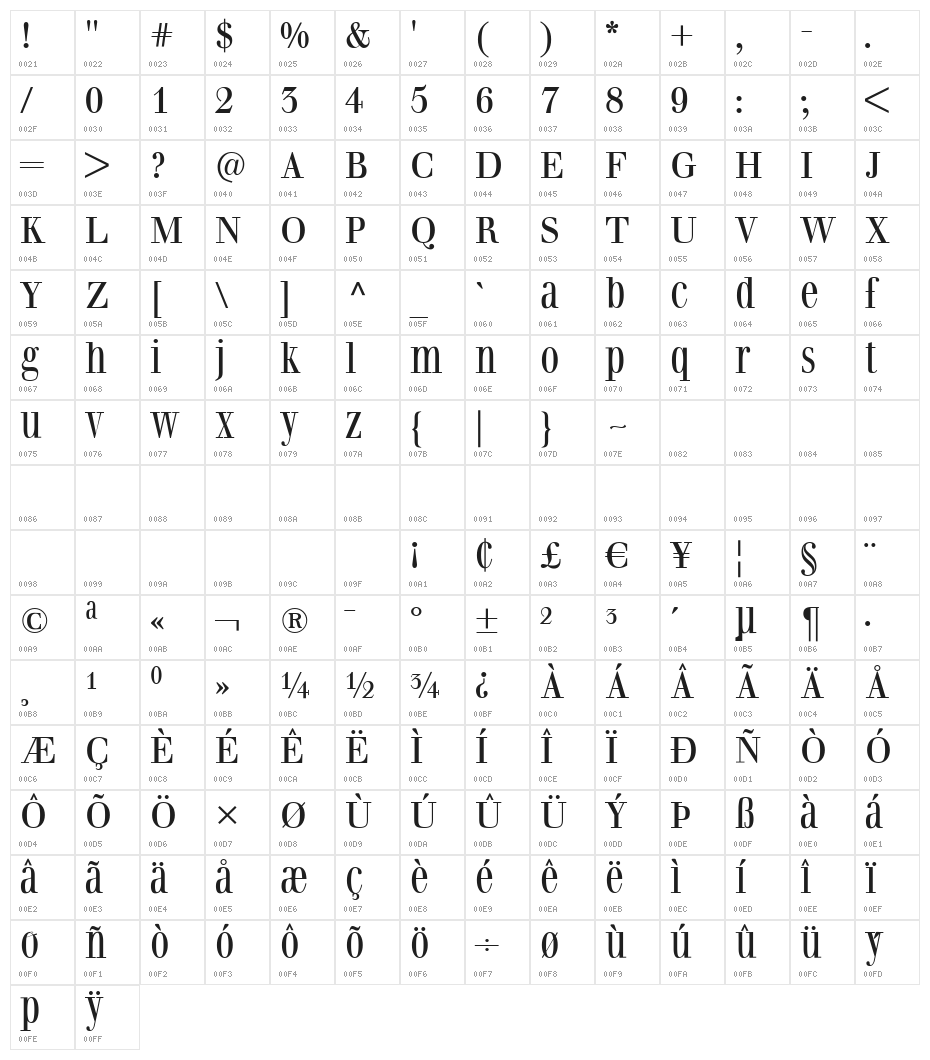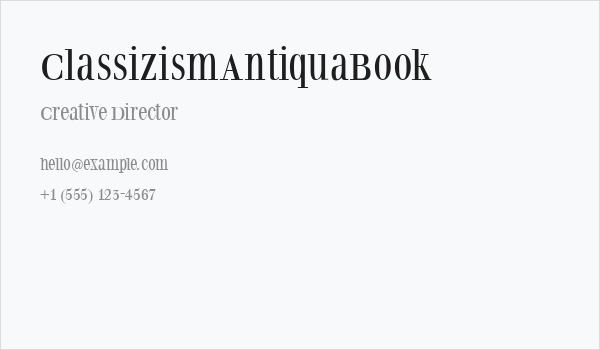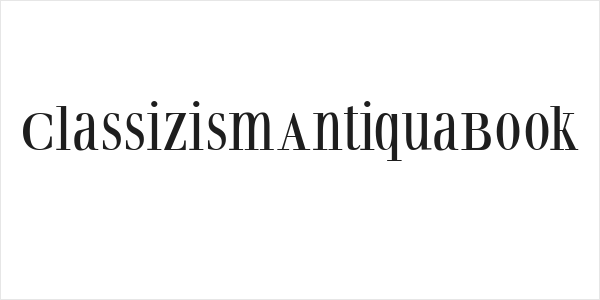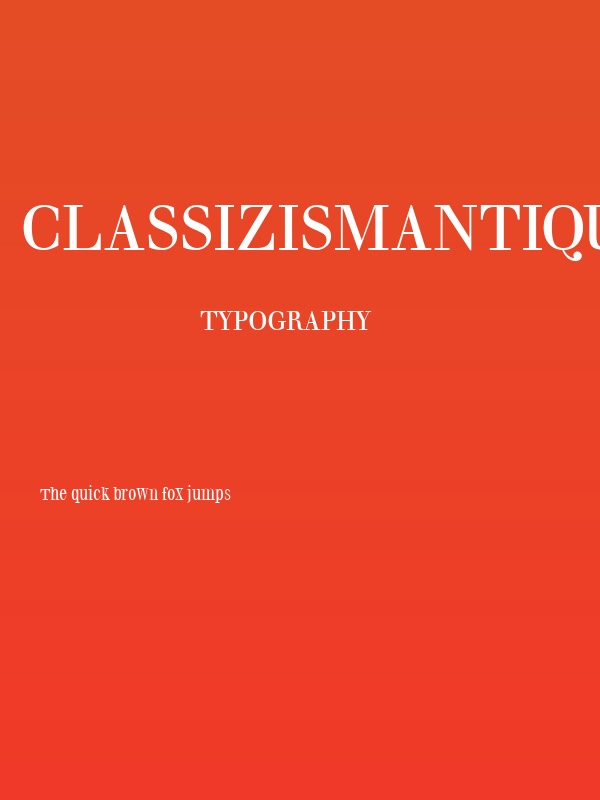
ClassizismAntiquaBook Font
ClassizismAntiquaBook Description
This font features a classic serif design with elegant and refined lines, embodying a timeless aesthetic. The uppercase letters are bold and commanding, while the lowercase letters maintain a balanced and harmonious appearance. The numerals are clear and distinct, ensuring readability. Special characters are thoughtfully designed to complement the overall style. The font's stroke contrast is medium, providing a sophisticated look without sacrificing legibility. Its traditional yet versatile design makes it suitable for a variety of applications.
| Proposed Projects | Ideal for book covers, editorial design, formal invitations, and branding projects that require a touch of elegance and tradition. |